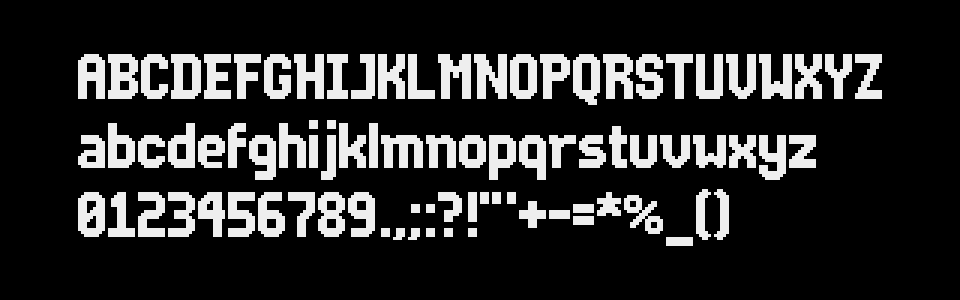
How do these scale? Like if you use small>mid>large UI?
Hey! The cap height of this font is 15px. This means that if you use it, say, at 2x scale it will be 30px tall. I strongly recommend to avoid upscaling it at uneven sizes or it won't look crisp.
This font is awesome! Would love to see Chinese characters support one day :)
Thanks! Eh, that would require tens of thousands of characters. But who knows, maybe one day!
Your pixel fonts are all awesome, but my game is localized and simplified Chinese :( so I haven't been able to use one fully yet.
In this case, you could use a dedicated font to cover Asian languages only and keep one of my designs for the rest. 😉
Exactly how it is done in most games that support multi language